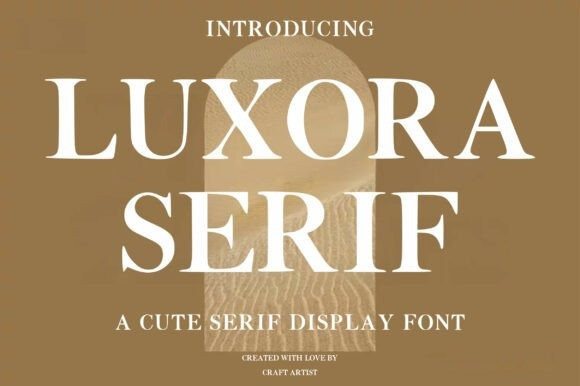
Luxora Serif Font
Luxora Serif Font is a chic and inviting display font that elevates classic serif styling with a contemporary, approachable aesthetic, perfect for conveying timeless quality and subtle luxury. Its uniqueness comes from the clean, balanced letterforms featuring medium contrast and slightly rounded serifs, which soften the traditional formal look, making it feel “cute” or friendly as described in the preview.
This typeface is ideally suited for modern wedding stationery, boutique branding, high-end packaging for organic products, lifestyle blogs, and any project demanding a clean, elegant, and comfortably luxurious vibe without being overly formal.